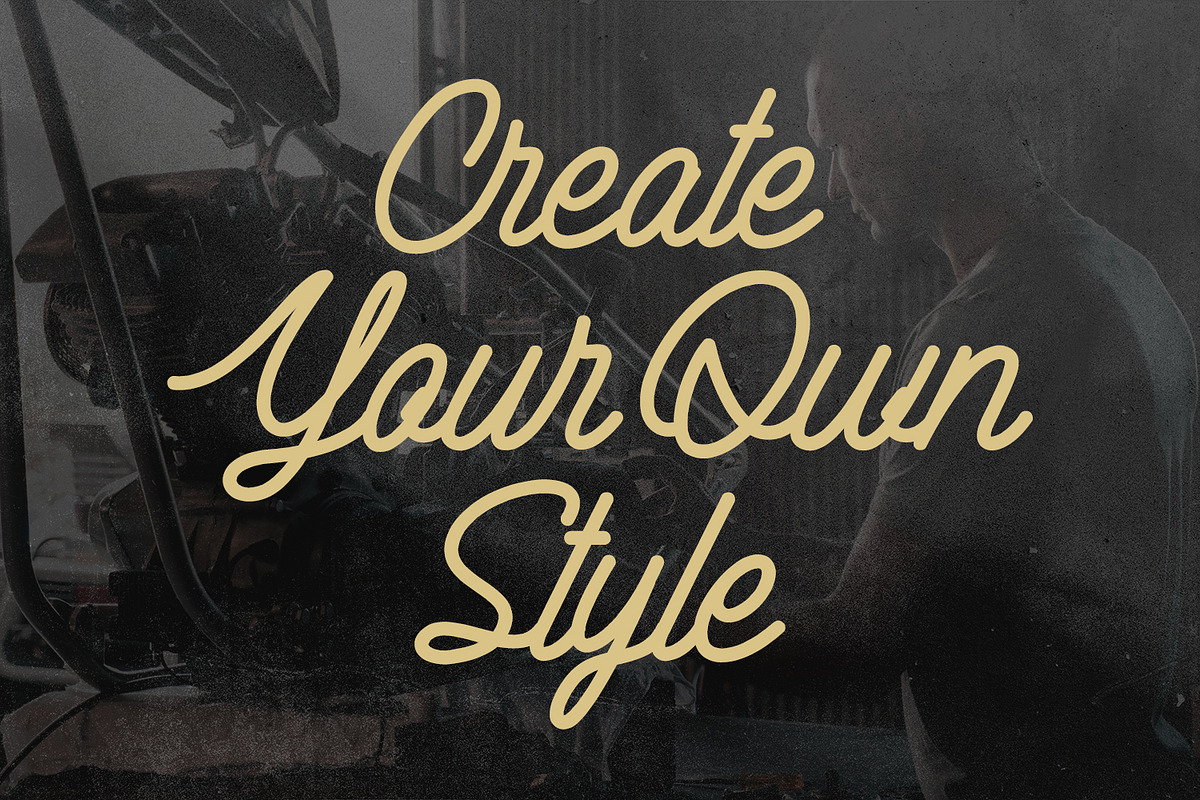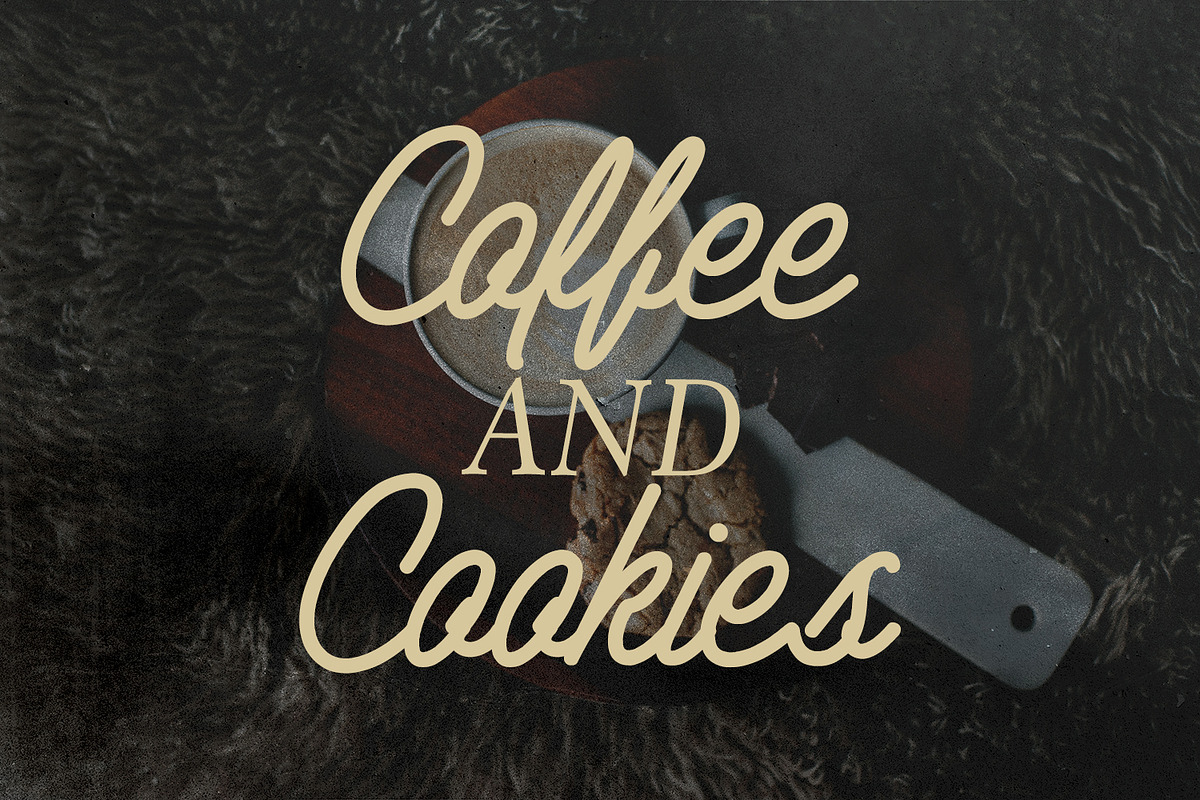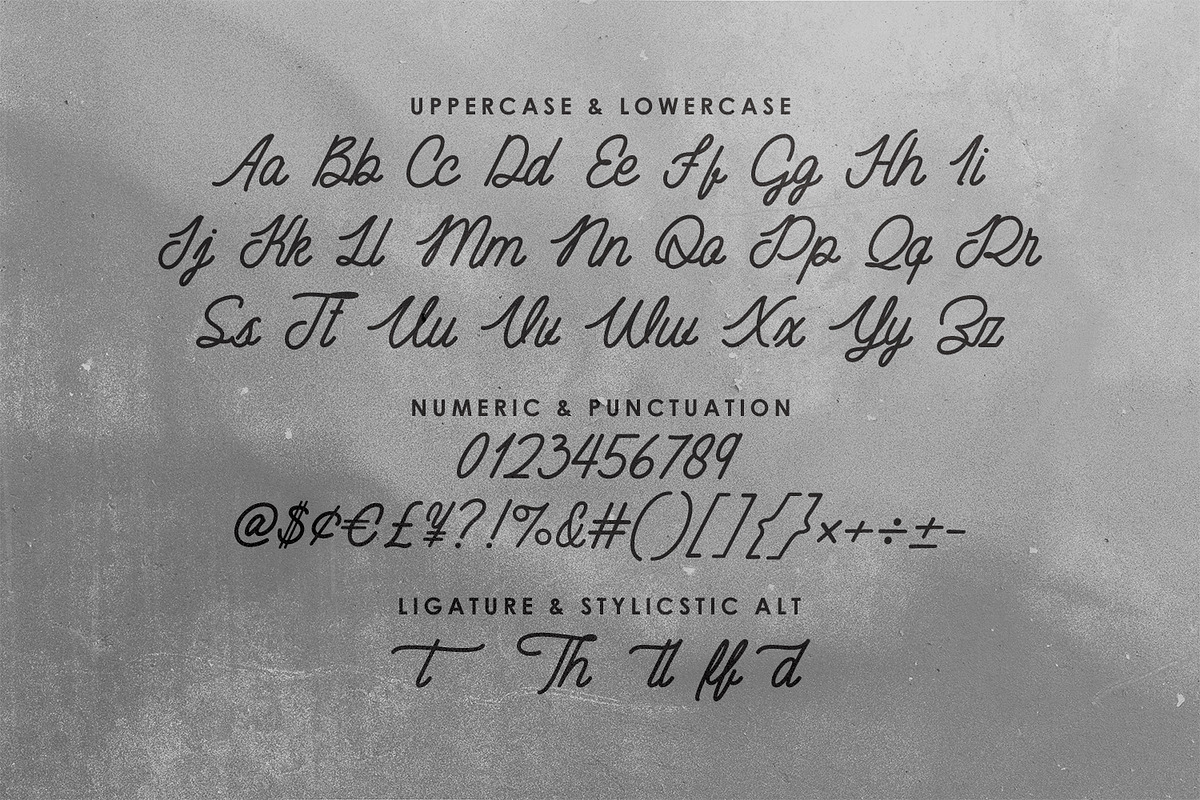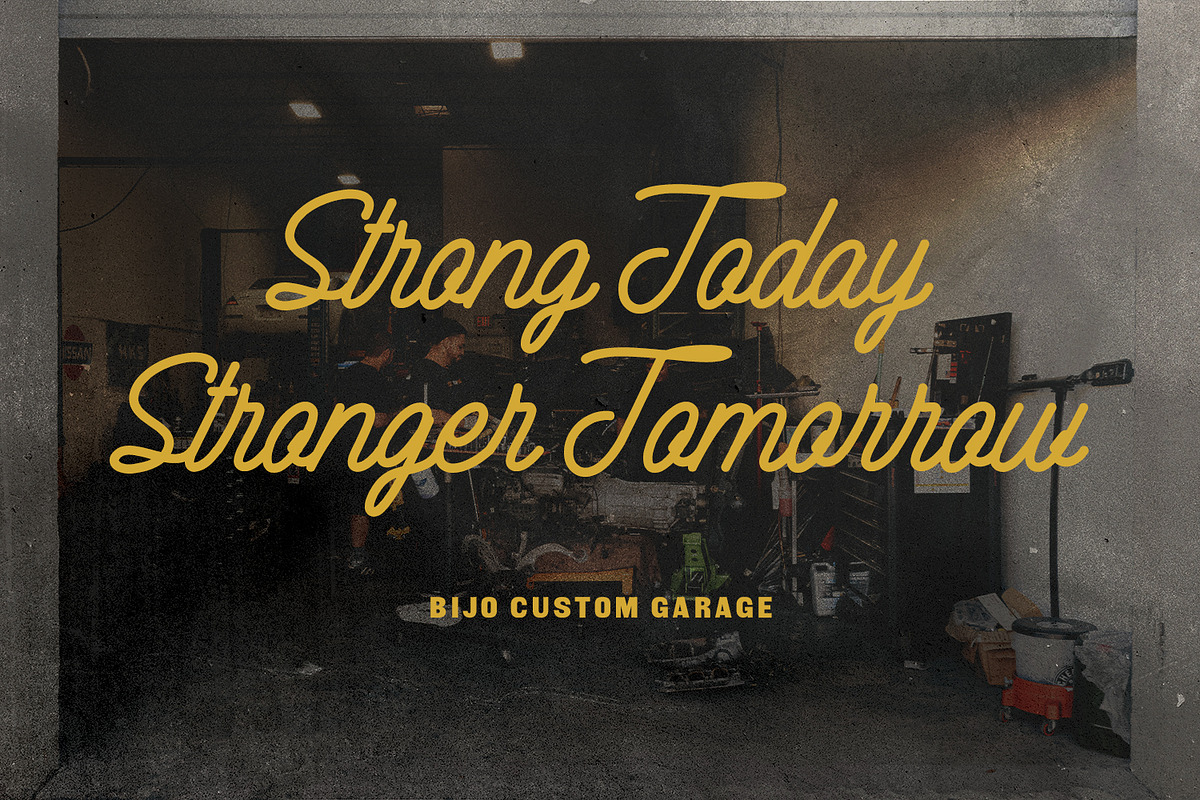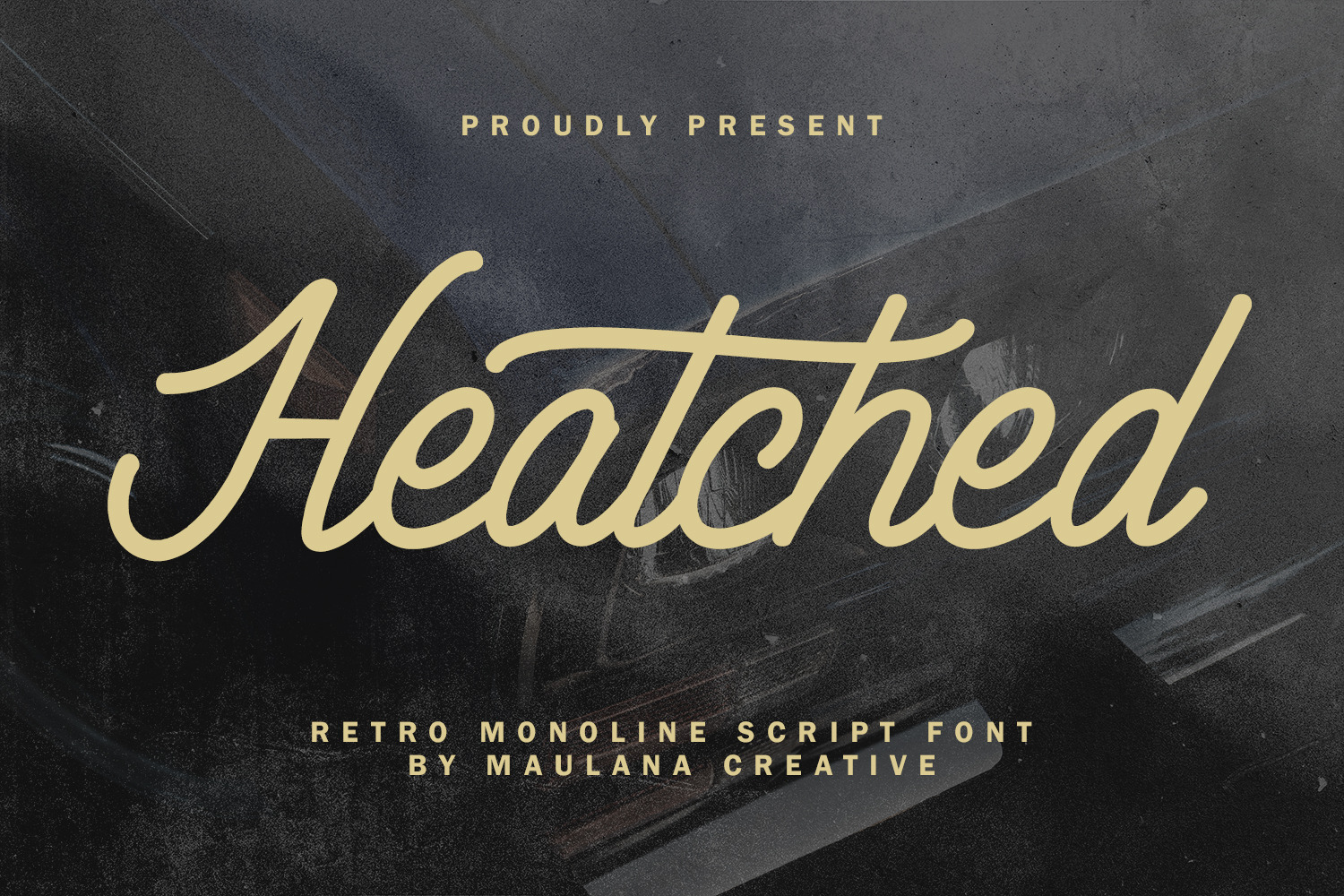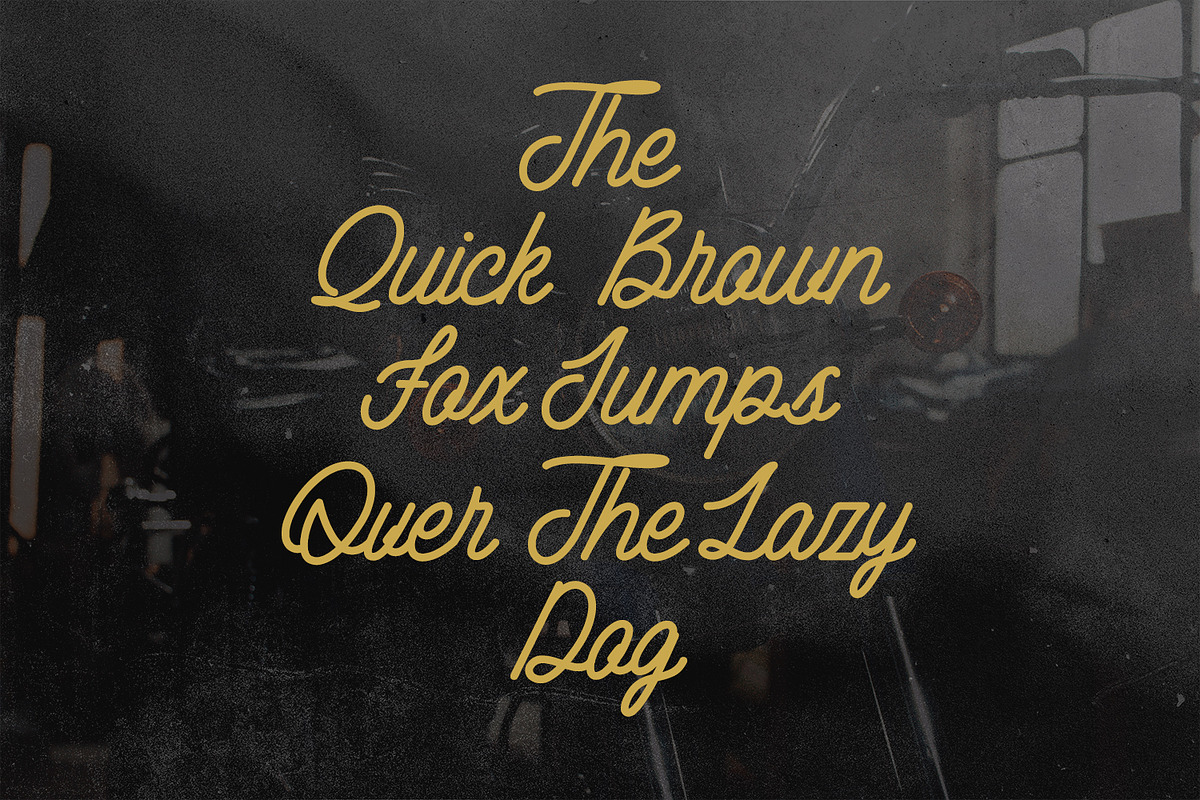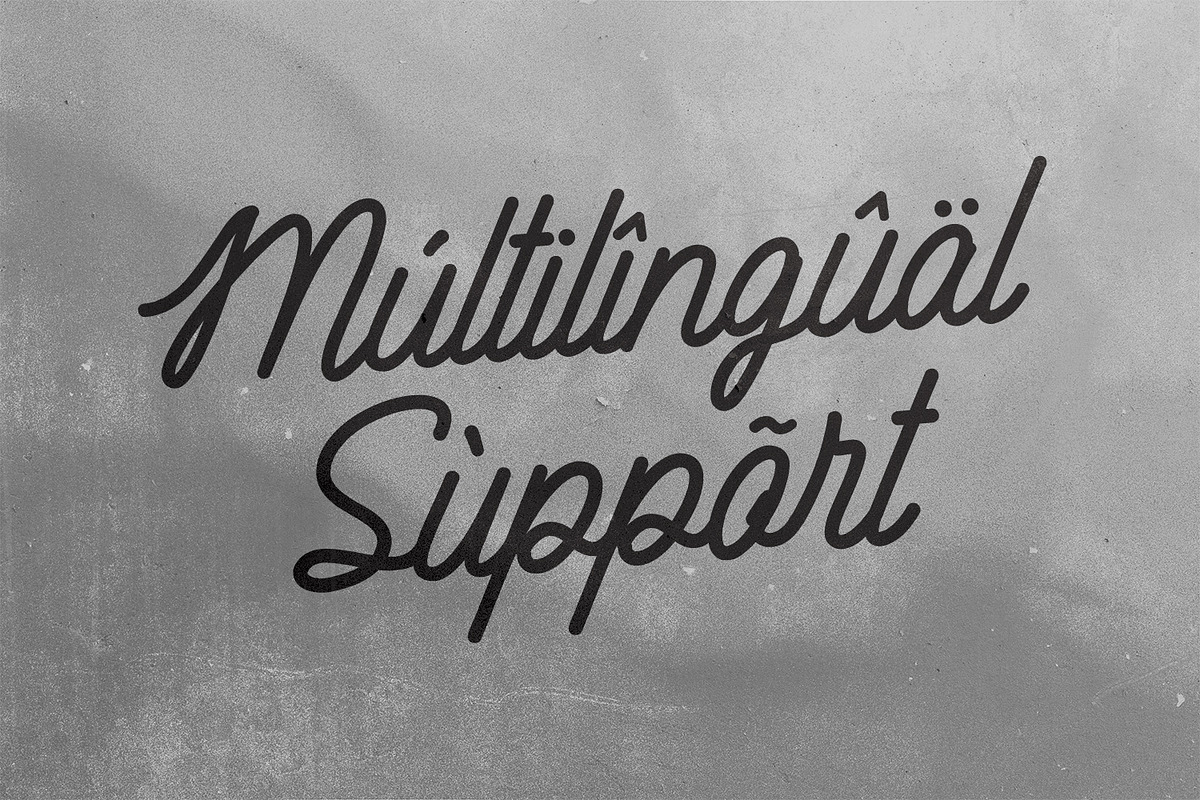
Heatched Monoline Script Font Retro
Heatched is an unique monoline retro script font. With regular contrast stroke, fun character with a bit of ligatures and alternates. To give you an extra creative work. Heatched font support multilingual more than 100+ language. This font is good for logo design, Social media, Movie Titles, Books Titles, a short text even a long text letter and good for your secondary text font with sans or serif. Make a stunning work with Heatched font.